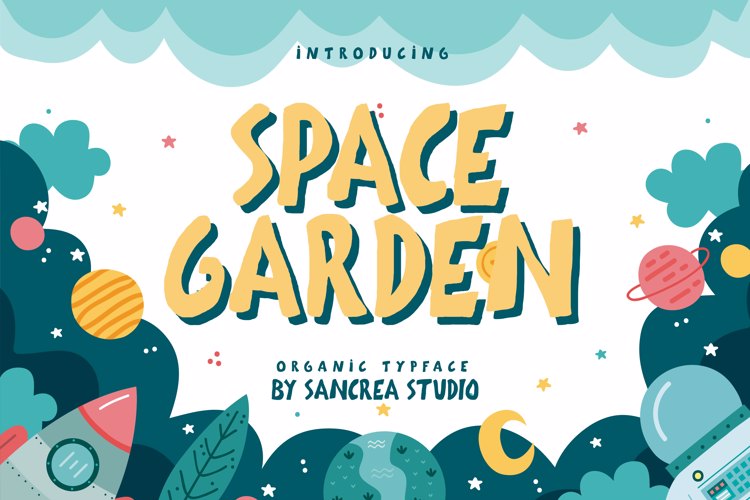
Space Garden Font
Space Garden - a super fun and playful hand-lettered bold brush typeface. Use for headlines, logos, quotes, invitations, blog posts, business cards,
presentations and more! This font is all caps and includes numbers and punctuation.